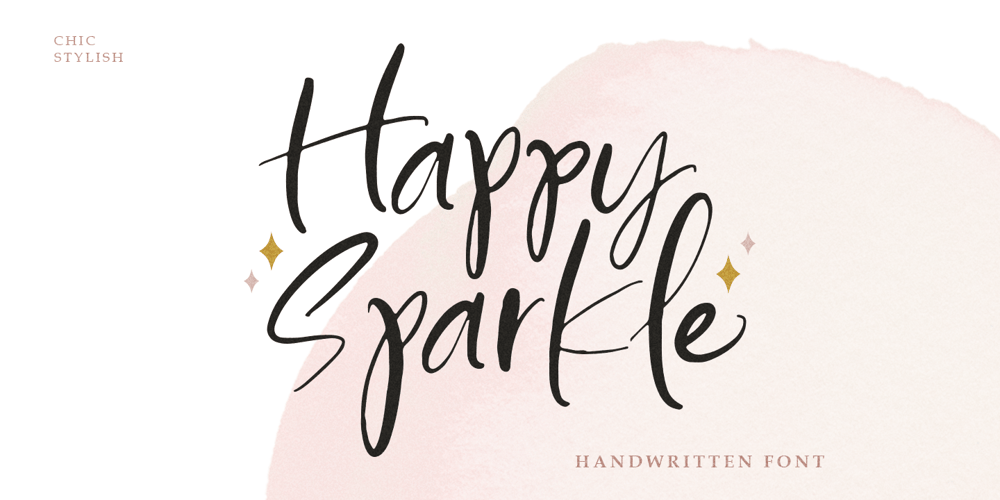
Happy Sparkle
Happy Sparkle font
Happy Sparkle Font Family was designed by Hendry Juanda and published by Letterhend. Happy Sparkle contains 1 styles and family package options. Introducing, Happy sparkle! a happy handwritten font that will bring your design into a happy and fun mood. this font is perfect for branding, packaging, logotype, headline, wedding invitation, etc.Features :- uppercase & lowercase- numbers and punctuation- multilingual- alternates and ligatures- swash- PUA encodedWe highly recommend using a program that supports OpenType features and Glyphs panels like many of Adobe apps and Corel Draw, so you can see and access all Glyph variations.